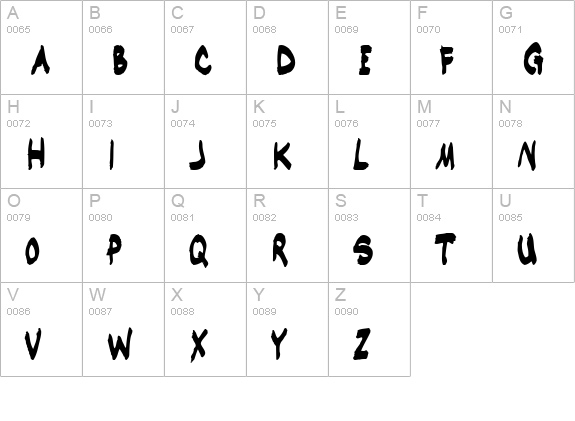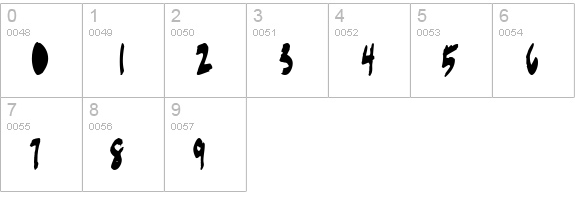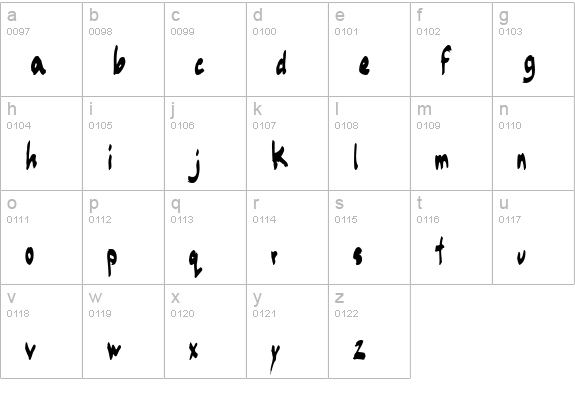
TimbukMarker Font Details
TimbukMarker font is a unique and eye-catching typeface that is sure to make a statement in any design project. With its bold and playful strokes, it adds a touch of creativity and personality to any text. Whether you're designing a poster, logo, or website, TimbukMarker font is the perfect choice to grab attention and leave a lasting impression. What makes TimbukMarker font even more appealing is that it is completely free! That's right, you can freely download this amazing font at FontsMarket.com. This means that you can enhance your design projects without breaking the bank. With TimbukMarker font, you have the freedom to explore your creativity and make your designs stand out from the crowd. The versatility of TimbukMarker font is another reason why it is a must-have for any designer. Its bold and playful nature makes it suitable for a wide range of applications, from children's books and invitations to social media graphics and merchandise. Whether you want to create a fun and whimsical design or add a touch of quirkiness to your branding, TimbukMarker font has got you covered. The attention to detail in TimbukMarker font is truly remarkable. Each letter is meticulously crafted to ensure a seamless flow and legibility. The thick and thin strokes create a dynamic visual impact, while the slightly irregular shapes add a sense of authenticity and hand-drawn charm. This font is sure to captivate and engage your audience, leaving them wanting more. So why wait? Download TimbukMarker font for free at FontsMarket.com and unleash your creativity. With its bold and playful design, this font is guaranteed to make a lasting impression in any design project. Whether you're a professional designer or just starting out, TimbukMarker font is a valuable addition to your font library. Don't miss out on the opportunity to elevate your designs and make them truly memorable.